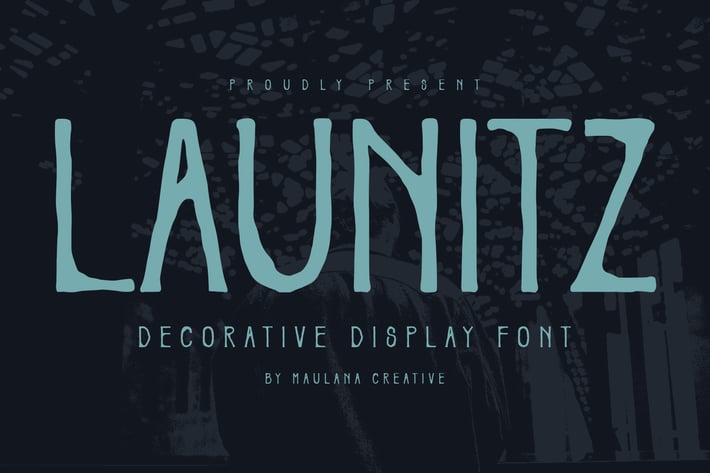
Launitz Decorative Display Font
Launitz is a decorative display vintage font. With bold tall and grunge stroke, fun character with a bit of ligatures. To give you an extra creative work. Launitz font support multilingual more than 100+ language. This font is good for logo design, Social media, Movie Titles, Books Titles, a short text even a long text letter and good for your secondary text font with sans or serif. Make a stunning work with Launitz font.